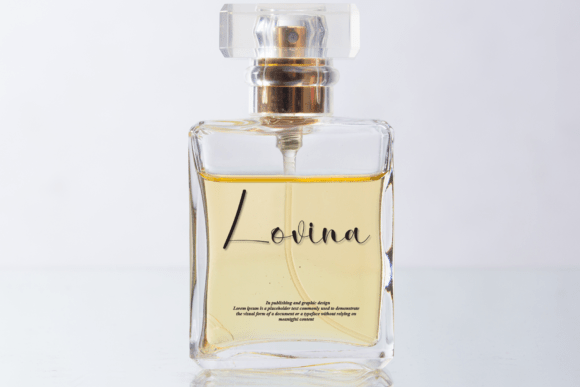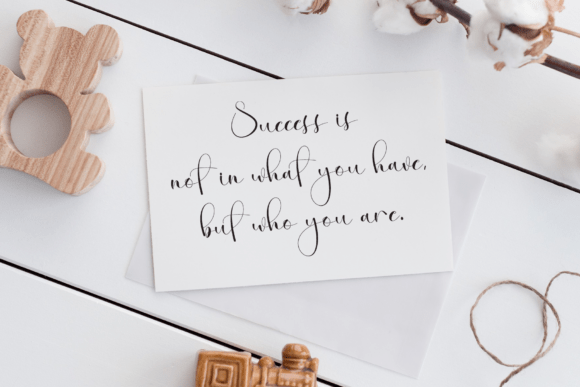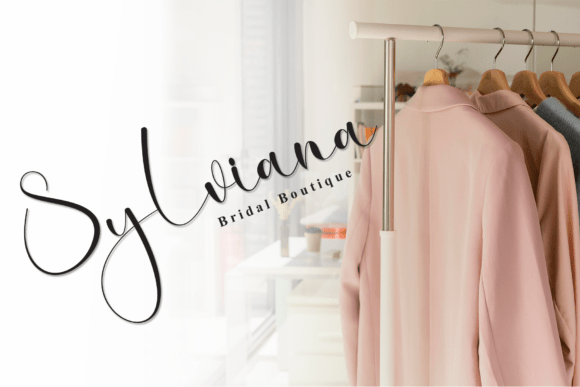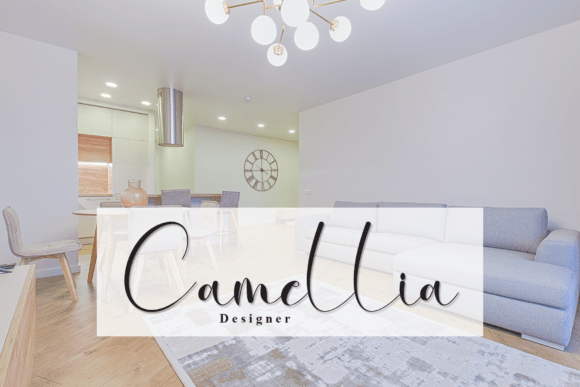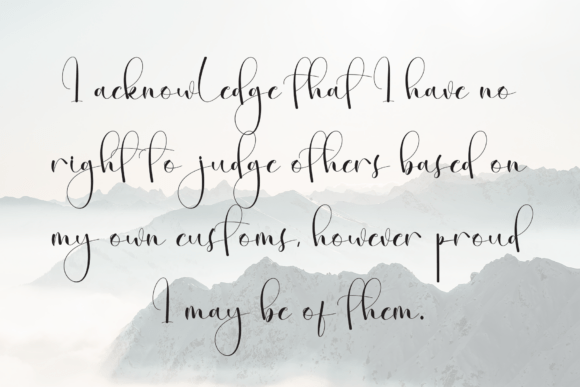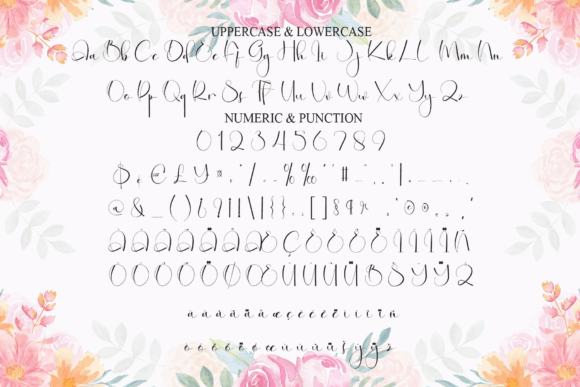
Exuding Effortless Elegance: The Andrea Font Revolution
In the world of typography, few fonts manage to convey the essence of luxury and sophistication as effortlessly as Andrea. This exquisite handwritten script is redefining modern elegance, offering designers and crafters a unique opportunity to elevate their visual identity to unprecedented heights. With its delicate, high-contrast strokes and sweeping horizontal swashes, Andrea is poised to become the go-to typeface for high-end branding, bespoke stationery, and chic editorial design.
The Anatomy of Elegance: Andrea’s Distinctive Features
Andrea’s design is characterized by its remarkably thin, refined profile, which lends an air of refinement and poise to any visual project. The font’s high-contrast strokes create a dramatic, dynamic effect, imbuing text with a sense of movement and fluidity. Meanwhile, the exaggerated, sweeping horizontal swashes add a touch of flamboyance and sophistication, perfectly capturing the essence of luxury and refinement.
Crafting Timeless Prestige: Ideal Applications for Andrea
Andrea’s exceptional elegance and sophistication make it an ideal choice for a variety of high-end applications, including:
- High-end boutique branding: Andrea’s refined profile and luxurious aesthetic make it perfect for branding high-end boutiques, luxury fashion labels, and upscale retailers.
- Bespoke wedding invitations: The font’s elegant, handwritten script is well-suited for custom wedding invitations, adding a touch of romance and sophistication to any wedding stationery.
- Luxury fragrance packaging: Andrea’s luxurious aesthetic and refined profile make it an excellent choice for luxury fragrance packaging, perfectly capturing the essence of high-end perfumery.
- Chic editorial titles: The font’s elegant, refined design makes it ideal for use in editorial titles, adding a touch of sophistication and refinement to any publication.
Effortless Elegance: Designing with Andrea
One of the key benefits of Andrea is its versatility and ease of use. Whether you’re designing a signature-style logo or a bespoke social media aesthetic, Andrea delivers a sense of timeless prestige and artisanal grace to your visual identity. The font’s delicate, high-contrast strokes and sweeping horizontal swashes create a sense of movement and fluidity, making it perfect for a wide range of design applications.
Tips and Tricks for Working with Andrea
To get the most out of Andrea, consider the following tips and tricks:
- Pair with contrasting fonts: Andrea’s elegant, refined design makes it perfect for pairing with contrasting fonts, creating a visually appealing and dynamic typographic hierarchy.
- Experiment with swashes: Andrea’s sweeping horizontal swashes can add a touch of drama and sophistication to your design. Experiment with different swash styles and configurations to find the perfect look for your project.
- Pay attention to spacing: Andrea’s delicate, high-contrast strokes require careful attention to spacing to ensure optimal legibility and visual flow.
In conclusion, Andrea is a game-changing font that offers designers and crafters a unique opportunity to elevate their visual identity to unprecedented heights. With its delicate, high-contrast strokes and sweeping horizontal swashes, Andrea exudes effortless elegance and sophistication, making it perfect for high-end branding, bespoke stationery, and chic editorial design. Whether you’re a seasoned designer or a crafty DIY enthusiast, Andrea is sure to become a favorite in your typographic arsenal.